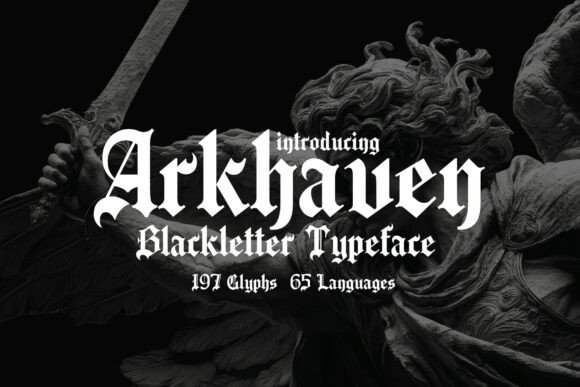
Introducing Arkhaven Font: The Epic Gothic Blackletter Typeface
Are you a designer looking for a font that embodies the essence of the medieval, mysterious, or spiritual? Look no further than Arkhaven Font, an epic and beautiful gothic blackletter typeface that bridges the sacred and the sublime. Inspired by the majestic lettering of Old English manuscripts, cathedral inscriptions, and ancient tomes, Arkhaven radiates both power and grace.
Key Features of Arkhaven Font
- Refined Serifs: Arkhaven’s serifs are carefully crafted to give the font a sense of elegance and sophistication.
- Ornate Curves: The font’s curves are intricately designed to add a touch of luxury and refinement.
- Dramatic Contrast: Arkhaven’s dramatic contrast between thick and thin strokes gives it a timeless elegance.
- 197 Glyphs: With 197 glyphs, Arkhaven offers a wide range of characters to help you create unique and eye-catching designs.
- 65 Language Support: This font supports 65 languages, making it incredibly versatile and ready for global storytelling.
Design Inspiration
Arkhaven Font is perfect for designers looking to capture the essence of the medieval, mysterious, or spiritual. Its elegant and refined design makes it ideal for a variety of design projects, including:
- Fantasy Books: Add a touch of magic and mystery to your fantasy book covers with Arkhaven Font.
- Historical Branding: Create a sense of authenticity and heritage with Arkhaven Font, perfect for historical branding and advertising.
- Gothic Logos: Arkhaven Font is perfect for creating gothic-inspired logos that exude power and elegance.
- Album Artwork: Add a touch of sophistication and elegance to your album artwork with Arkhaven Font.
- Elegant Invitations: Create unforgettable invitations with Arkhaven Font, perfect for weddings, formal events, and more.
Uses of Arkhaven Font
Arkhaven Font is not just a font, it’s a relic reborn. Its versatility and elegance make it perfect for a wide range of design projects, including:
- Print Design: Use Arkhaven Font for print design projects such as brochures, posters, and business cards.
- Digital Design: Arkhaven Font is perfect for digital design projects such as website headers, social media graphics, and email marketing campaigns.
- Branding: Create a lasting impression with Arkhaven Font, perfect for branding and advertising projects.
Glyphs and Languages
Arkhaven Font comes with 197 glyphs and supports 65 languages, making it incredibly versatile and ready for global storytelling. Some of the languages supported include:
- English
- Spanish
- French
- German
- Italian
- Portuguese
- Chinese (Simplified and Traditional)
- Japanese
- Korean
Why Choose Arkhaven Font?
So why choose Arkhaven Font over other fonts? Here are just a few reasons:
- Unique Design: Arkhaven Font has a unique and elegant design that sets it apart from other fonts.
- Versatility: With 197 glyphs and support for 65 languages, Arkhaven Font is incredibly versatile and ready for global storytelling.
- Elegance: Arkhaven Font exudes elegance and sophistication, making it perfect for a variety of design projects.
In conclusion, Arkhaven Font is an epic and beautiful gothic blackletter typeface that bridges the sacred and the sublime. With its refined serifs, ornate curves, and dramatic contrast, Arkhaven Font radiates both power and grace. Its versatility, elegance, and unique design make it perfect for a wide range of design projects, from fantasy books to historical branding and gothic logos. Whether you’re a designer looking to capture the essence of the medieval, mysterious, or spiritual, Arkhaven Font is the perfect choice.